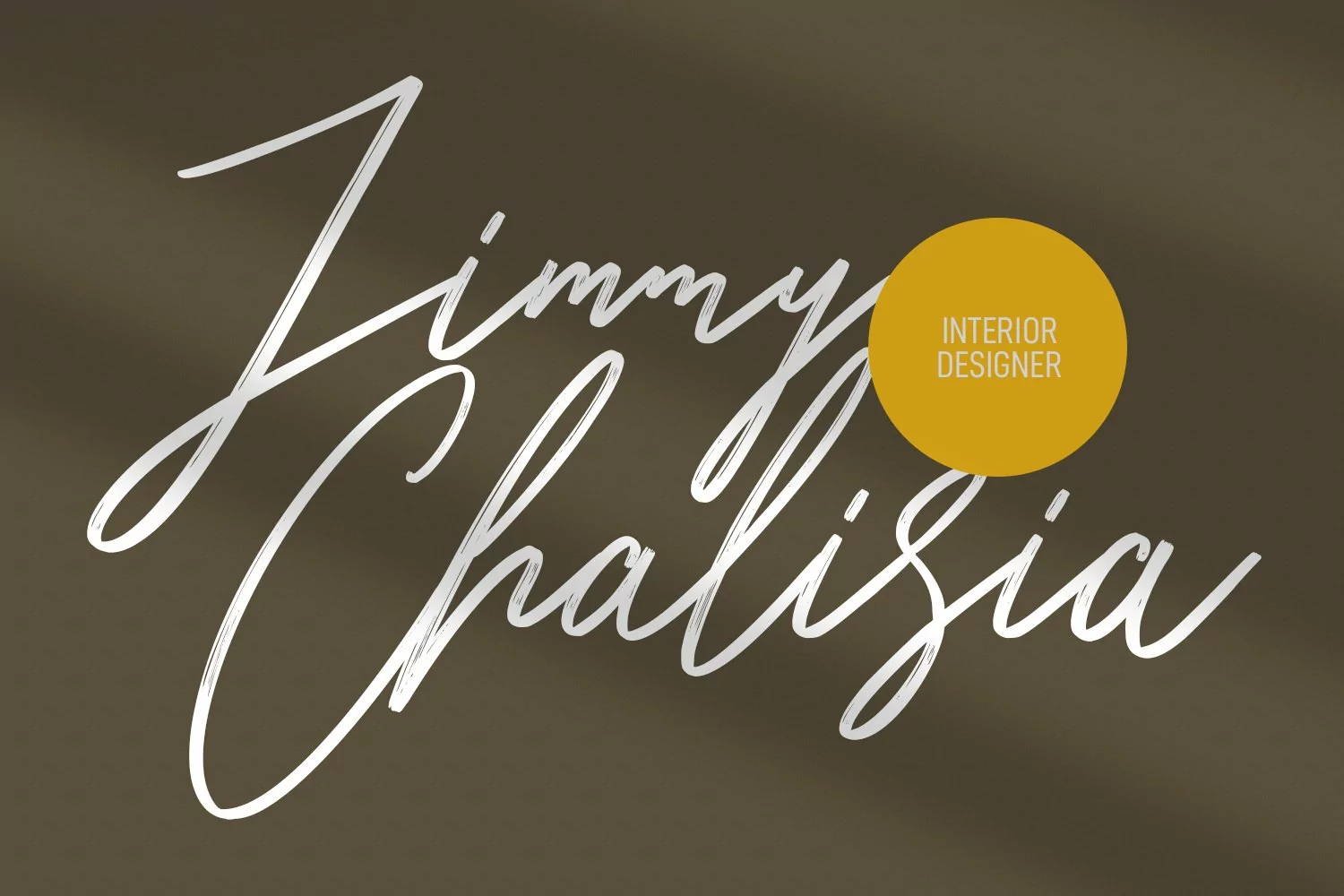
Hitshot is an expressive signature brush script font. With regular brush stroke, slanted and fun character with some of ligatures and lowercase alternates. To give you an extra creative work. Hitshot font support multilingual more than 100+ language. This font is good for logo design, Social media, Movie Titles, Books Titles, a short text even a long text letter and good for your secondary text font with sans or serif. Make a stunning work with Hitshot font.